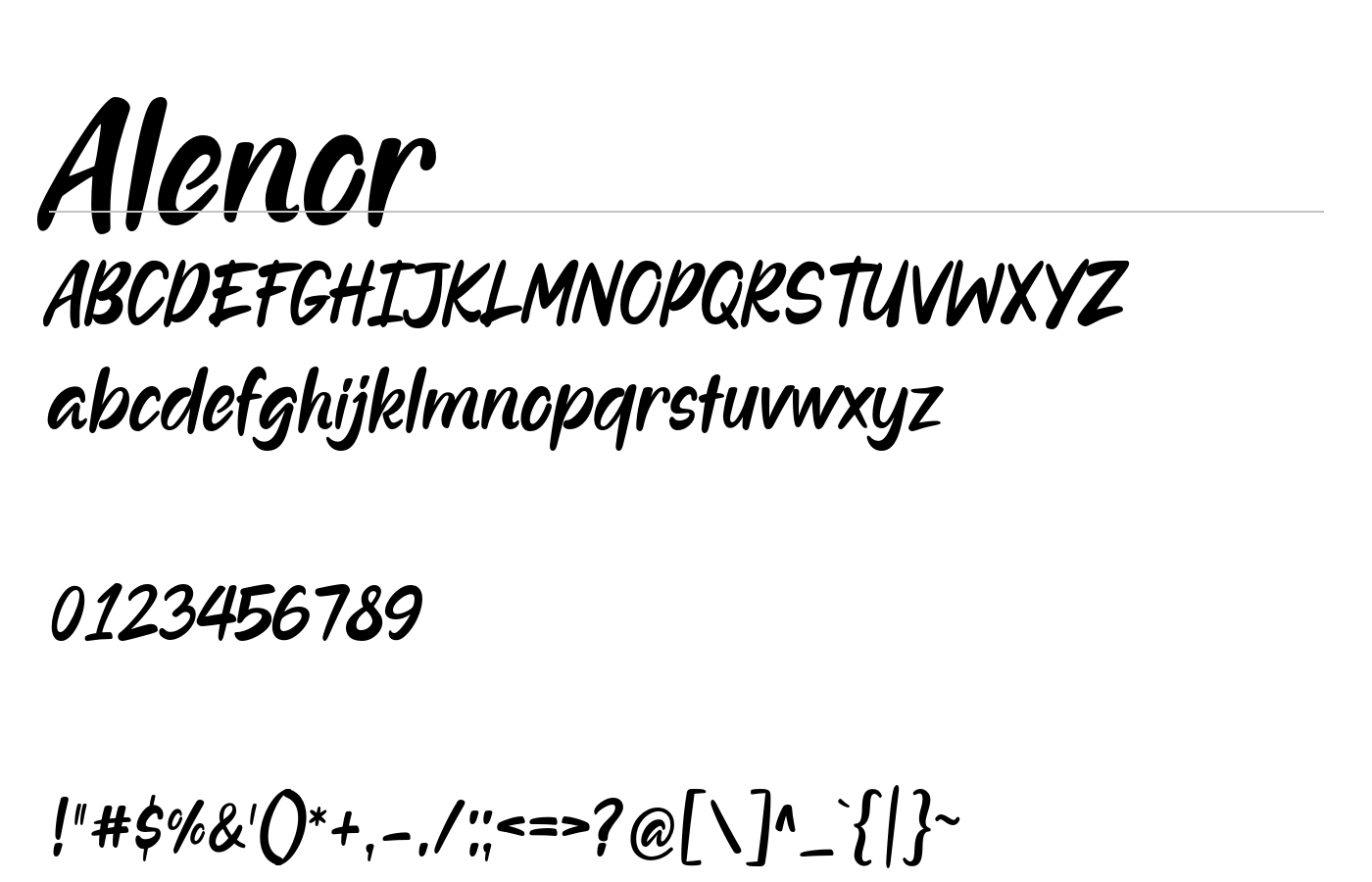
Alenor is a lively and casual script font with a friendly, handwritten feel. Its smooth, slightly slanted letterforms and moderate contrast give it an inviting and approachable personality, making it ideal for creative branding, informal headlines, and packaging that seeks a personal touch. This font excels in designs where warmth and energy are key, such as lifestyle blogs, greeting cards, and playful logos.
Alenor Font
About Alenor Font
| Font family | Alenor Font |
| Designer | Aysa; Keithzo; Situjuh Nazara |